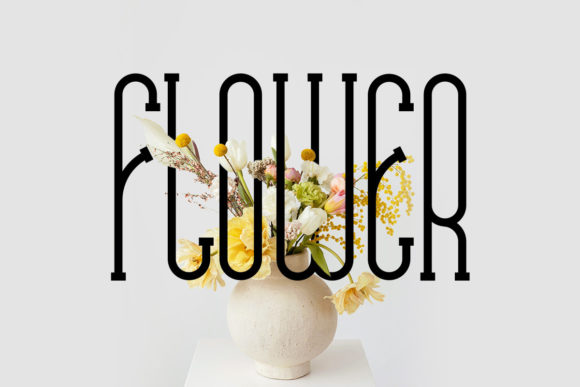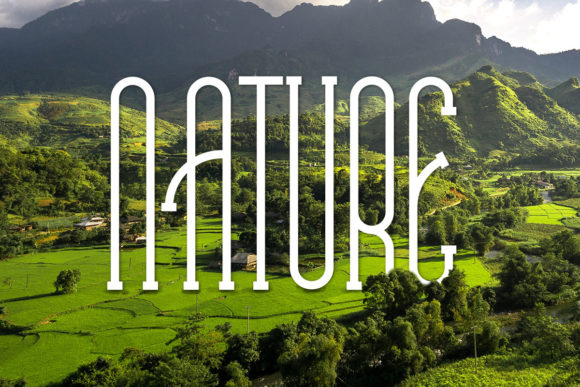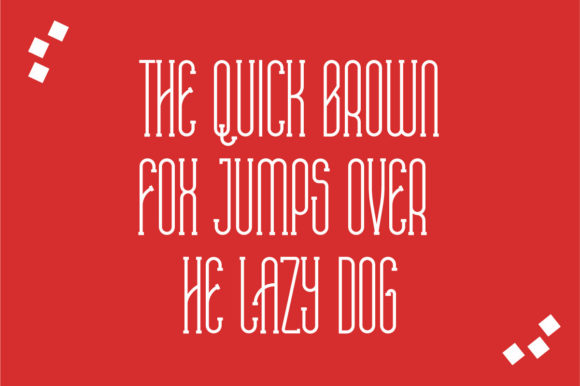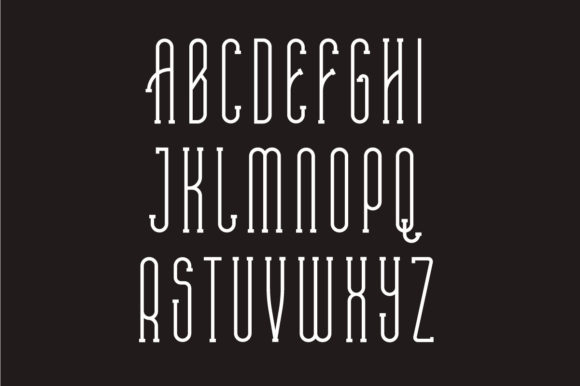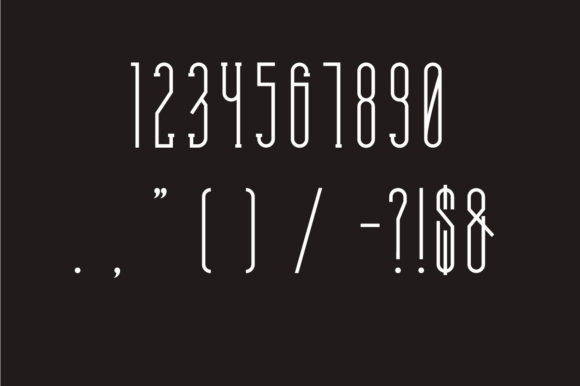
Discover the Unique Charm of Andaline Font: Elevate Your Designs with a Quirky and Modern Serif
In the vast world of typography, finding the perfect font that adds a touch of personality to your creative projects can be a daunting task. However, if you’re looking for a font that stands out from the crowd with its quirky and modern serif design, look no further than Andaline Font. This unique typeface is designed to add an interesting accent to a wide range of projects, making it a versatile choice for designers and crafters alike. In this article, we’ll dive into the features of Andaline Font, explore its usage possibilities, and understand why it has become a go-to choice for many creative professionals.
What is Andaline Font?
Andaline Font is a distinctive serif font that brings a fresh and modern twist to traditional typography. Its quirky design elements make it an eye-catching choice for projects that require a bit of personality. Whether you’re working on a branding campaign, designing invitations, or creating custom apparel, Andaline Font offers a unique aesthetic that can help your designs stand out.
Key Features of Andaline Font
- Quirky and Modern Design: Andaline Font boasts a quirky and modern serif design that adds a touch of whimsy to any project.
- Versatility: Its versatile nature makes it suitable for a wide range of applications, from digital designs to print materials.
- Ease of Use: Designed with user-friendliness in mind, Andaline Font is easy to integrate into various design projects.
- High-Quality: As a high-quality font, Andaline ensures clarity and legibility across different sizes and resolutions.
Usage Possibilities for Andaline Font
The versatility of Andaline Font is one of its most appealing aspects. Here are some of the many ways you can use this unique font:
- Apparel: Add a quirky touch to t-shirts, hoodies, and other clothing items with Andaline Font.
- Mugs and Drinkware: Design custom mugs, water bottles, and more with this eye-catching font.
- Invitations and Stationery: Make your invitations, greeting cards, and stationery stand out with Andaline’s unique charm.
- Banners and Signs: Use Andaline Font for banners, posters, and signs to grab attention.
- Branding and Logos: Incorporate Andaline Font into your branding materials and logos for a distinctive look.
Why Choose Andaline Font?
With so many fonts available, why should Andaline Font be your top choice? Here are a few compelling reasons:
- Uniqueness: In a sea of generic fonts, Andaline offers a breath of fresh air with its quirky and modern design.
- Versatility: Its wide range of applications makes it a valuable addition to any designer’s toolkit.
- Legibility: Despite its unique design, Andaline Font maintains high legibility, making it suitable for both headings and body text.
Tips for Using Andaline Font Effectively
To get the most out of Andaline Font, consider the following tips:
- Mix and Match: Combine Andaline Font with other fonts to create a unique visual hierarchy.
- Experiment with Sizes: Play around with different font sizes to emphasize certain elements of your design.
- Color Matters: Choose colors that complement the quirky and modern vibe of Andaline Font.
- Keep it Simple: While Andaline Font is detailed, ensure your overall design remains clear and not overly cluttered.
Andaline Font is more than just a quirky and modern serif font; it’s a tool that can transform your creative projects with its unique charm. Whether you’re a designer looking to add some personality to your branding materials or a crafter aiming to create eye-catching apparel and accessories, Andaline Font is an excellent choice. Its versatility, ease of use, and distinctive design make it a valuable addition to any creative toolkit. So, why settle for ordinary when you can make your designs extraordinary with Andaline Font?